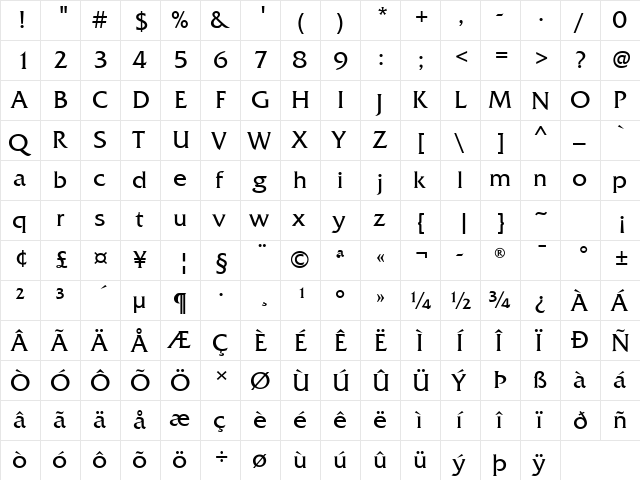
Friz Quadrata Com Regular
| Foundry | Linotype GmbH |
| Designer | Ernst Friz |
Design Context for Friz Quadrata Com Typeface
Friz Quadrata Com offers clean, dependable letterforms without strong stylistic allegiance, making it a practical choice for designers who need flexibility.